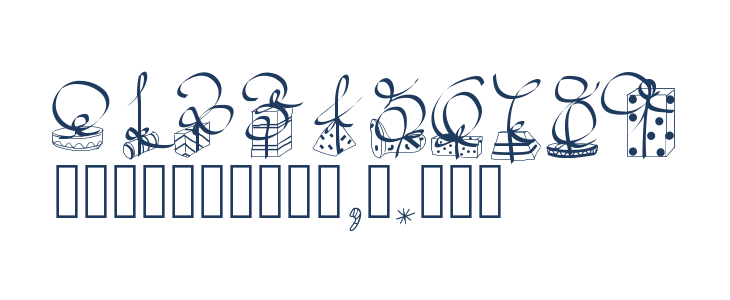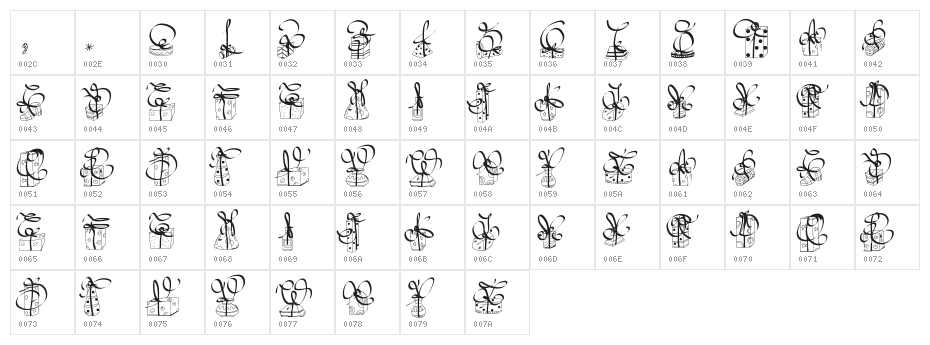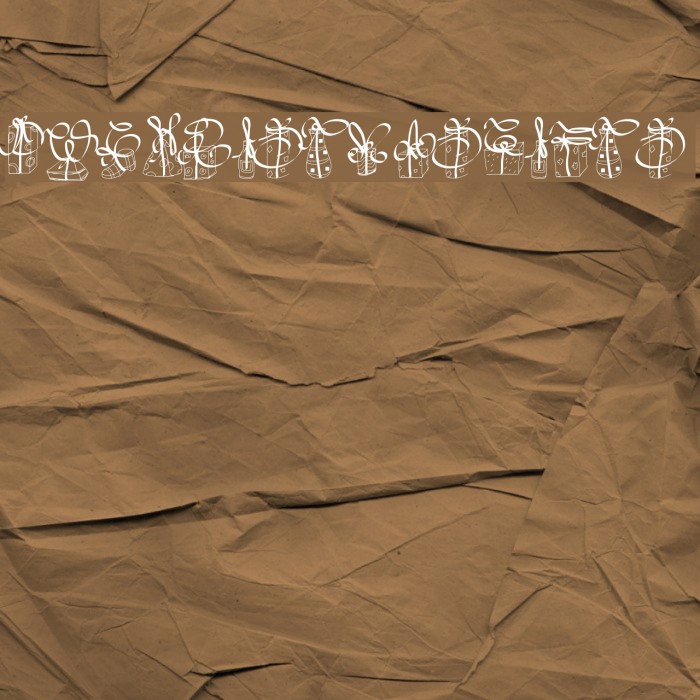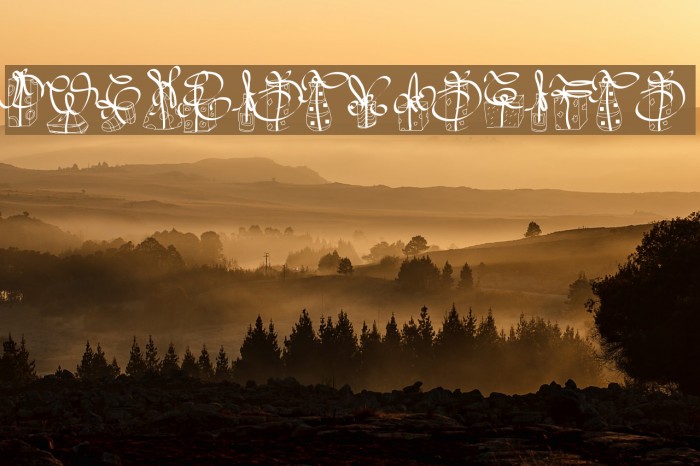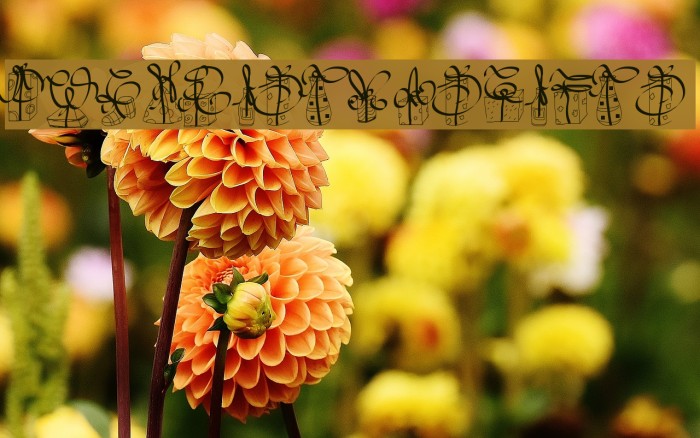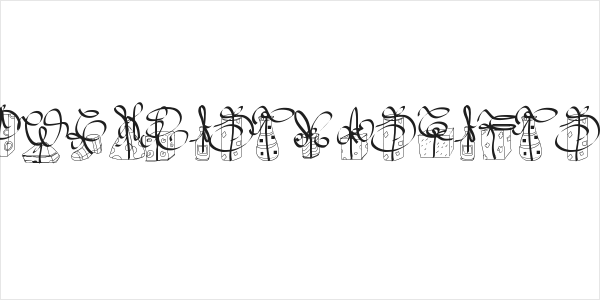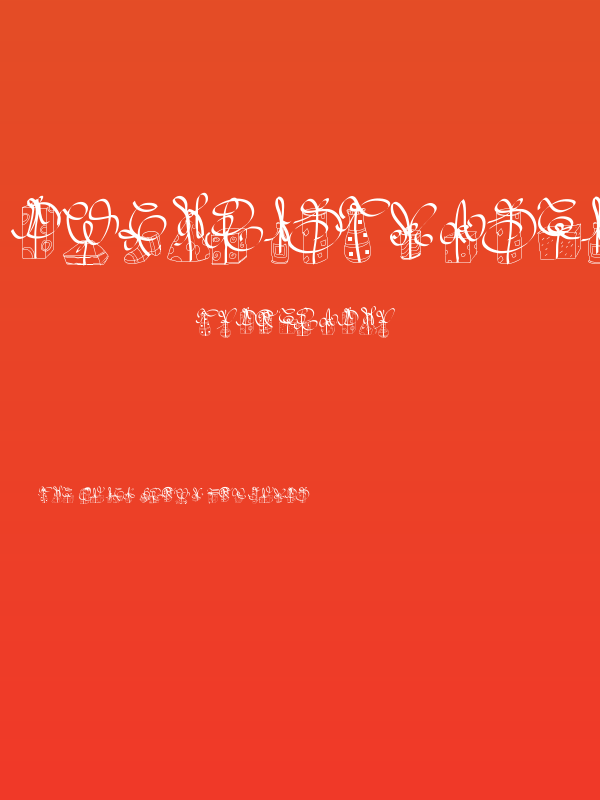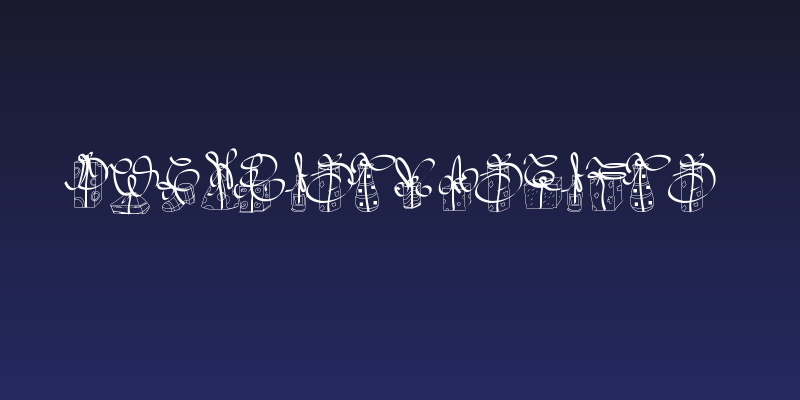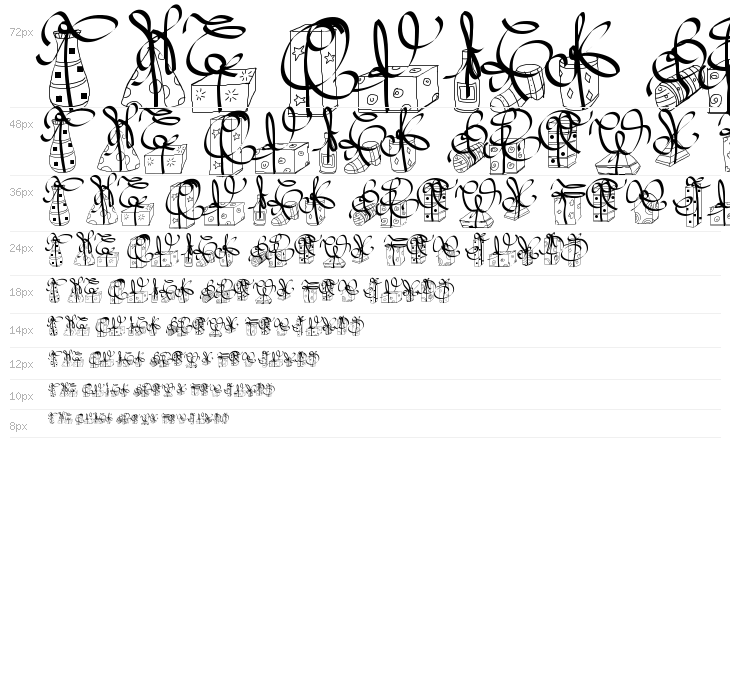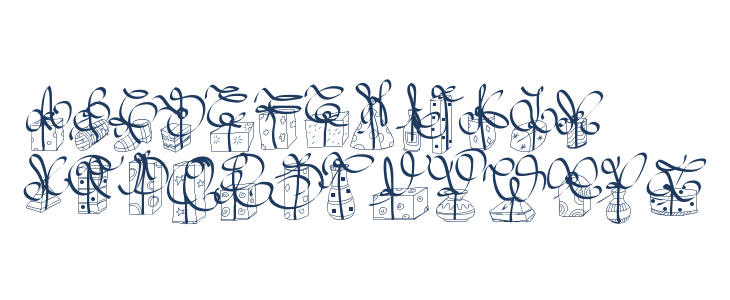
PWChristmasGifts Font
This decorative font features a whimsical and festive design, with each character represented as a unique gift box adorned with ribbons and bows. The playful style captures the essence of holiday cheer, making it perfect for seasonal projects. The characters are creatively illustrated, with each letter and number taking on a distinct shape that resembles a wrapped present. This font is ideal for adding a touch of fun and celebration to any design, especially during the Christmas season. The intricate details and imaginative forms make it stand out, providing a joyful and lively aesthetic.
Overall StyleFestive, Whimsical, Playful
Use CaseHeadlines, Decorative text, Holiday-themed projects
Proposed ProjectsHoliday cards, festive invitations, Christmas-themed posters, gift tags, seasonal branding.